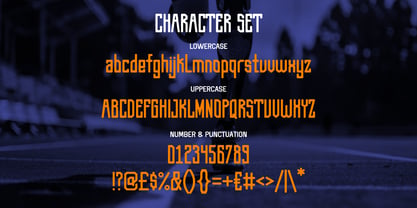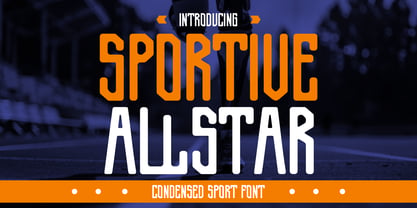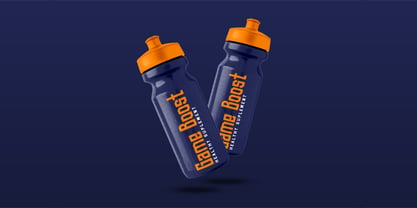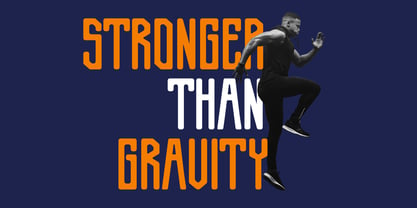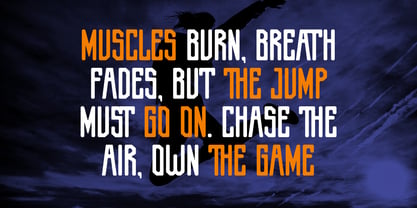
Sportive Allstar
by Shanaf
The Sportive Allstar Font Family was designed by Yesie Erma Yunita and published by Shanaf. Sportive Allstar contains 1 styles. More about this family
Sportive Allstar is a dynamic and condensed sport font built to energize your design with bold athleticism. Crafted with sharp angularity and consistent vertical tension, this typeface echoes the spirit of competitive sports, making it perfect for commanding attention on posters, event banners, sports apparel, and product packaging. Each character is tall, narrow, and engineered to maximize space while maintaining impact. The combination of uppercase dominance and geometric curves gives it a refined yet aggressive look—ideal for football, track, fitness, or e-sport branding. This font strikes a confident tone while staying clean and readable across various mediums.
Its dual-tone display preview—contrasting orange and white on deep blue—amplifies visual energy and readability. The set includes uppercase, lowercase, numbers, punctuation, and multilingual support. The mix of straight strokes and unique corner cuts offers rhythm and power, making it suitable for both main titles and supporting taglines. Whether for team logos, gym identity, supplements, or game-day graphics, Sportive Allstar drives your message forward with high-octane confidence.